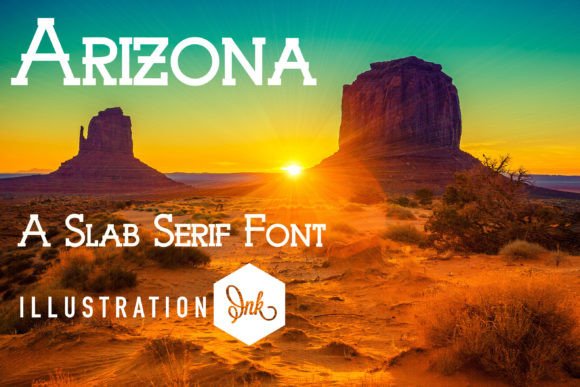
The Arizona Font: A Bold and Elegant Choice for Your Design Projects
I’ll never forget the time I was working on a branding project for a luxury hotel, and I was struggling to find the perfect font to convey the sense of sophistication and grandeur that the client wanted. That’s when I stumbled upon the Arizona font, and it completely transformed my design. With its bold, thick serifs and strong lines, Arizona exudes a sense of power and stability, while its unique details and artistic flair add a touch of elegance and refinement.
A Personal Review: What I Love (and Love to Hate) About Arizona
- ✅ Eye-catching beauty: Arizona is a stunning blend of boldness and sophistication that demands attention and makes a lasting impression.
- ✅ Versatility: This font is perfect for a wide range of design projects, from luxury branding to elegant signage.
- ✅ Legibility: Despite its bold design, Arizona remains highly legible, even at smaller font sizes.
- ⚠️ Limited use cases for body text: While Arizona is perfect for headings and titles, it may not be the best choice for longer blocks of body text.
- ⚠️ May not be suitable for very small font sizes: Arizona’s bold design can become overwhelming at very small font sizes, so use with caution.
One of the best things about Arizona is its OpenType features and glyphs. With Arizona, you can access a range of stylistic alternates, swashes, and other glyphs to add more visual interest to your design. For example, you can use the stylistic alternates to create a more elegant or refined look, or add swashes to give your text a more luxurious feel.
The Backstory Behind Arizona
Arizona was designed by a team of typographers who wanted to create a font that would evoke the grandeur and beauty of the American Southwest. Inspired by the rugged landscape and rich cultural heritage of the region, they created a font that would be both bold and elegant, with a unique blend of modern and traditional elements.
Q: Is Arizona a script font?
A: No, Arizona is a serif font with a bold and elegant design.